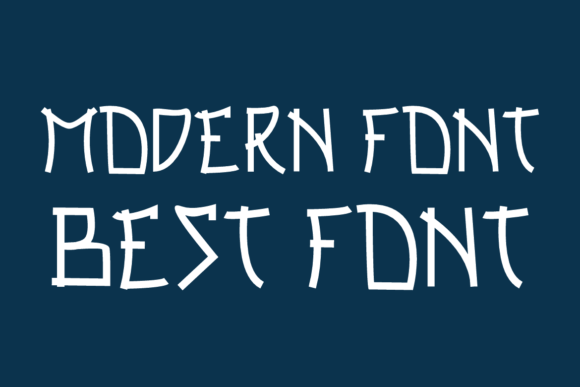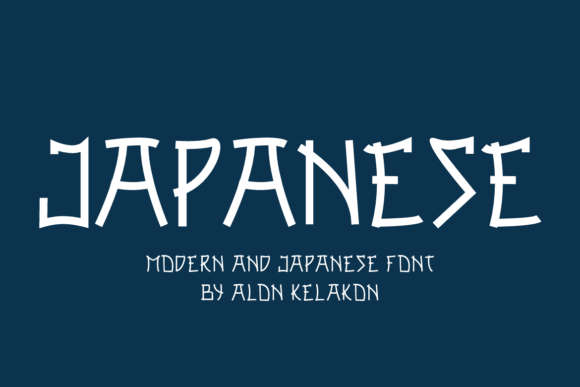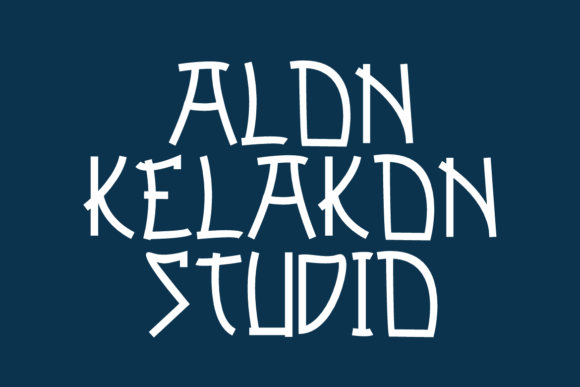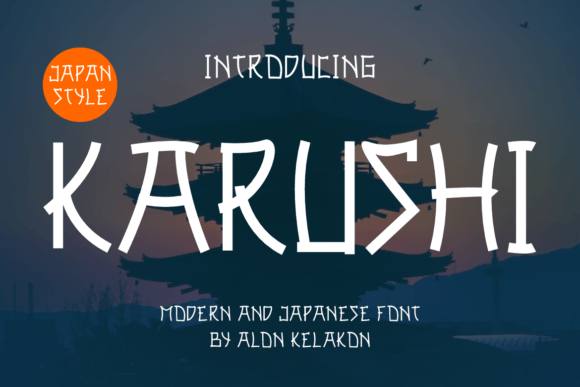
Introduction to Karushi Font
Karushi Font is a Japaneese inspired handwritten font.
Use it to add a cultural touch to your food menus, restaurant posters, businesss cards, soical media, welcome signs and much more .
Karushi Font offers exceptional quality and versatility, making it a valuable addition to your design toolkit. Whether you’re creating for personal projects or commercial use, Karushi Font delivers professional results.